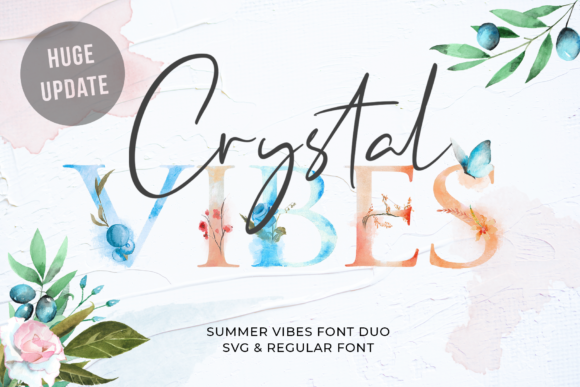
In a realm of visual artistry, there exists a font duo that captivates the senses and ignites the imagination – Crystal Vibes. Crafted by the ingenious minds at 50Fox, this serif symphony is a harmonious blend of botanical allure and handwritten elegance.
Born from the essence of summer's vibrant hues, Crystal Vibes embodies the very essence of joie de vivre, infusing your creative endeavors with a touch of magic. Its meticulously designed ligatures dance across the page like delicate brushstrokes, leaving a trail of visual enchantment in their wake.
Immerse yourself in the world of Crystal Vibes and discover a font duo that transcends the ordinary. Its Hi-Res Botanical Summer Vibes SVG font exudes an aura of rustic charm, reminiscent of sun-kissed meadows and blooming gardens. The handwritten font, with its graceful curves and playful personality, adds a touch of whimsy and authenticity to your designs.
With Crystal Vibes by your side, elevate your logos to new heights, transforming them into emblems of distinction and sophistication. Adorn your hand-painted lettering with an enchanting grace, capturing the essence of heartfelt emotions with every stroke. Let your printed quotes radiate with an air of wisdom and inspiration, as if whispered by the universe itself.
Badges and insignia crafted with Crystal Vibes exude an aura of exclusivity and prestige, leaving an indelible mark on the minds of those who behold them. Unleash your creativity and design packaging that tells a story, captivating customers with its intricate details and vibrant colors.
Headlines and posters adorned with Crystal Vibes command attention, demanding to be seen and admired. Their bold presence commands respect, while their refined elegance leaves a lasting impression. T-shirts and apparel embellished with Crystal Vibes radiate an aura of individuality and style, making a statement wherever you go.
With Crystal Vibes, your greeting cards and wedding invitations transcend the realm of the ordinary, becoming cherished keepsakes that encapsulate life's most precious moments. Their timeless beauty will be treasured for generations to come, evoking memories of love, joy, and everlasting bonds.
Embrace the enchanting world of Crystal Vibes, a font duo that embodies the spirit of creativity and transforms your designs into works of art. Let your imagination soar and experience the magic of typography like never before.